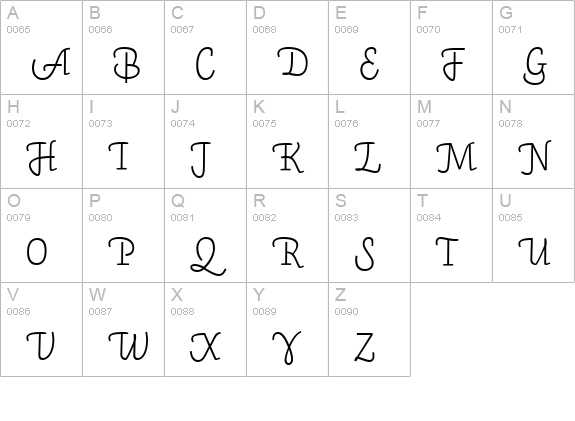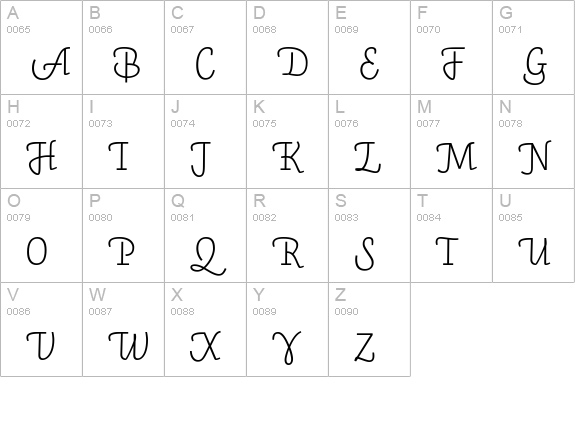
Auto 3 Light Italic LF Font Details
Auto 3 Light Italic LF is a refined, elegant, italic variant in the Auto typeface family \xE2\x80\x94 well suited to elegant body text, refined sub-headings, and luxury branding.
Auto 3 Light Italic LF is a sleek and modern font that exudes elegance and sophistication. Its slender and stylish letterforms make it perfect for a wide range of design projects, from branding to editorial design. The light italic style adds a touch of flair and personality, making it stand out among other typefaces. This versatile font is ideal for creating a contemporary and refined look in your designs. Whether you are working on a website, a brochure, or a branding project, Auto 3 Light Italic LF will bring a touch of class to your work. Best of all, this font is available for free download at FontsMarket.com. So you can easily add this beautiful typeface to your font collection without any cost. Don't miss out on the opportunity to enhance your design projects with the timeless elegance of Auto 3 Light Italic LF.